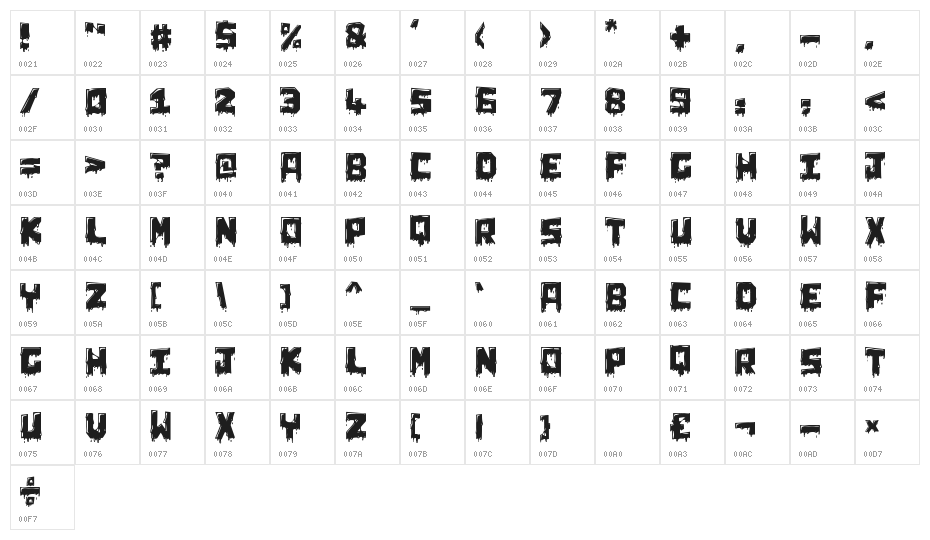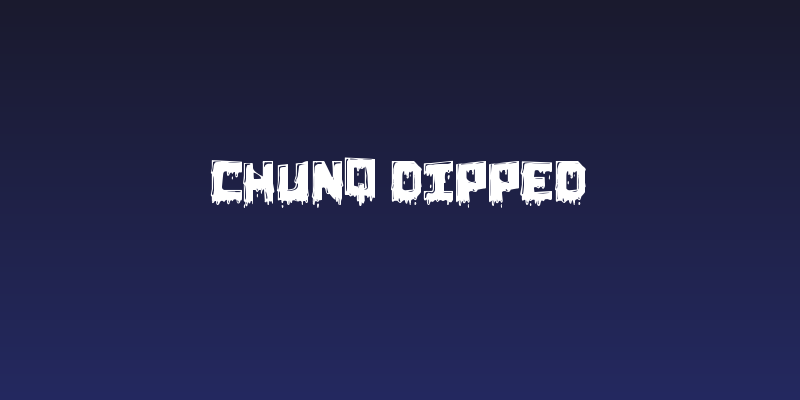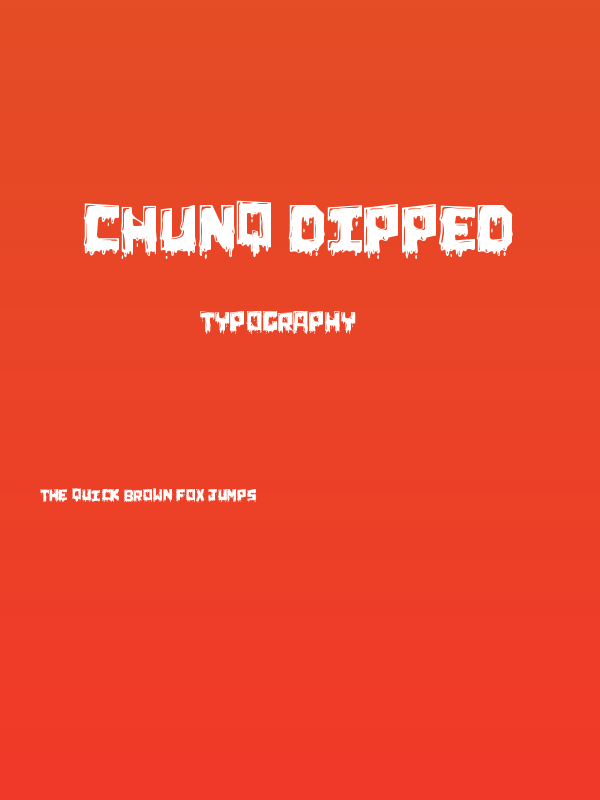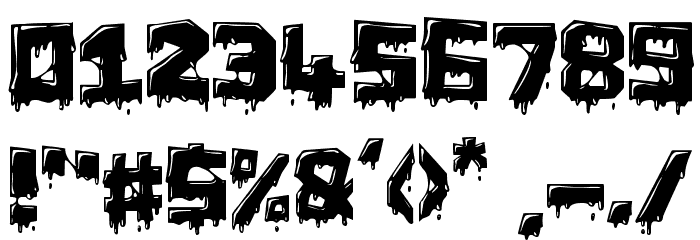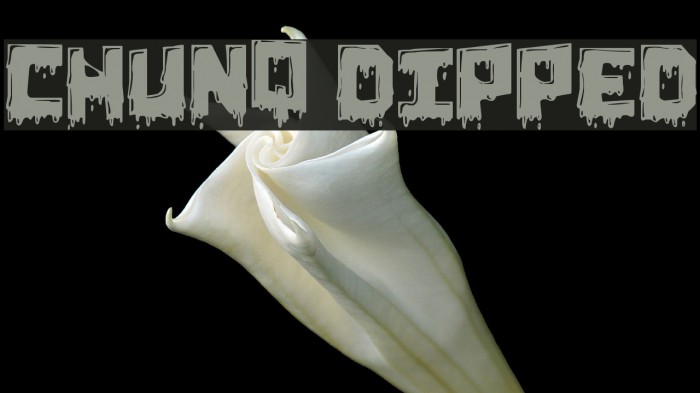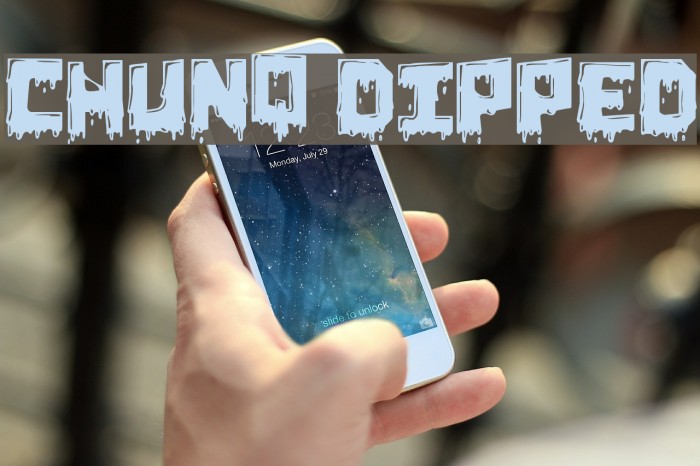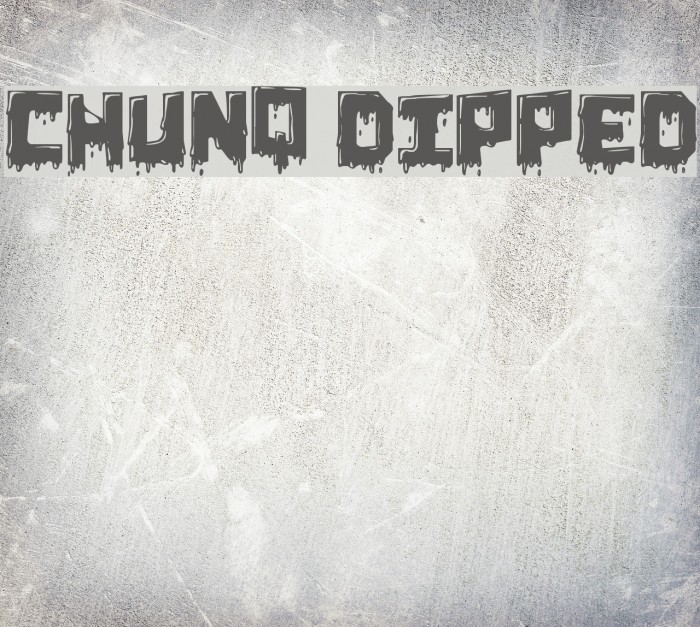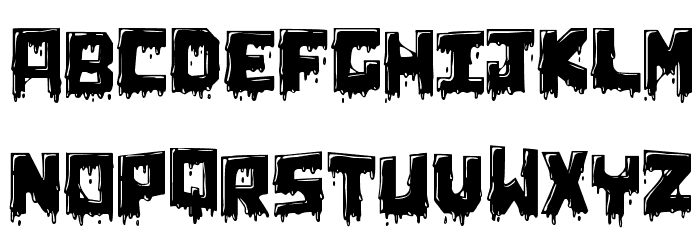
Chunq Dipped Font
Chunq Dipped Description
This font features a bold and dripping design, reminiscent of melting or liquid forms. The characters have a strong, blocky structure with irregular edges that give the appearance of being dipped in a viscous substance. The uppercase and lowercase letters maintain a consistent style, with each character exhibiting unique drips and splatters that add to the overall dynamic and edgy look. The numerals and special characters follow the same theme, ensuring a cohesive appearance across all glyphs. This font's distinctive style makes it ideal for eye-catching designs and creative projects.
| Proposed Projects | Ideal for Halloween-themed designs, horror movie posters, edgy branding, or any project requiring a dramatic and eye-catching typeface. |